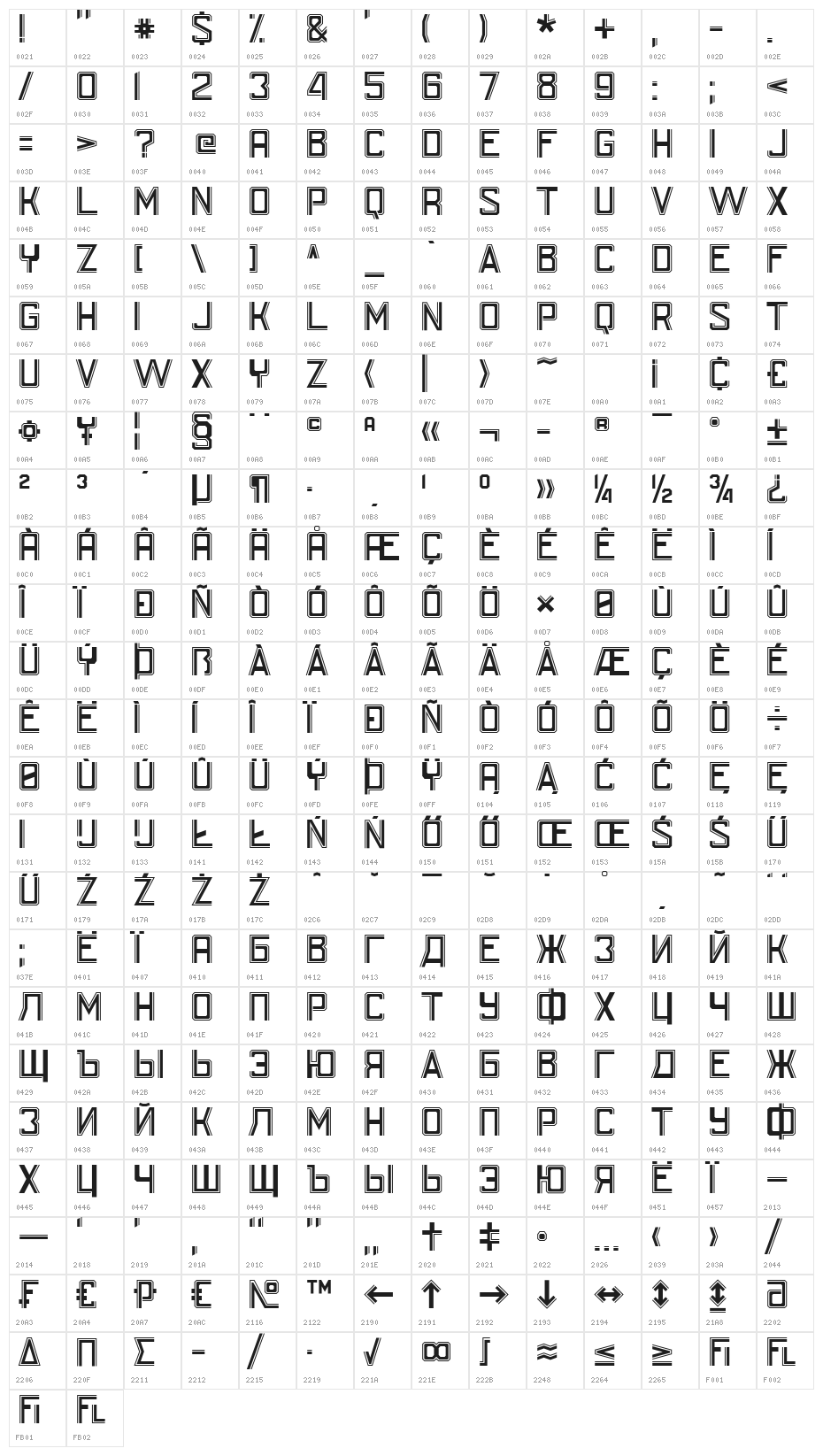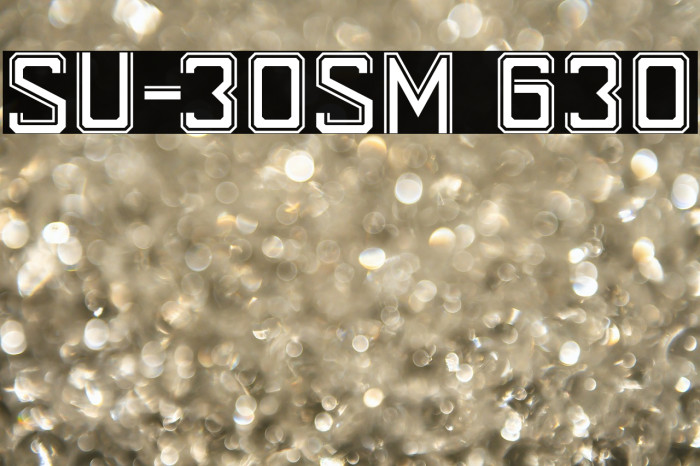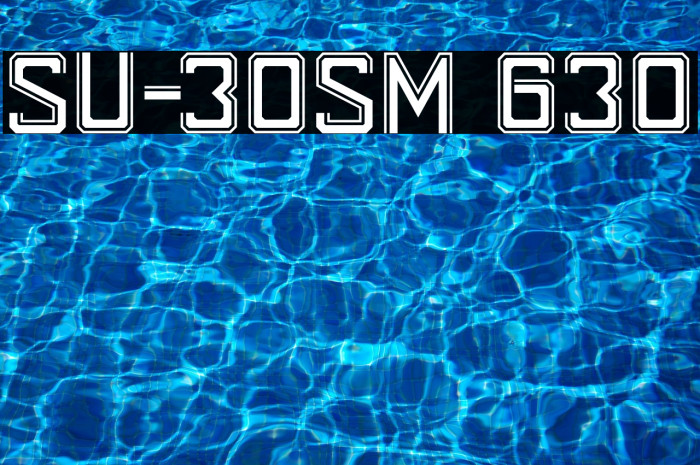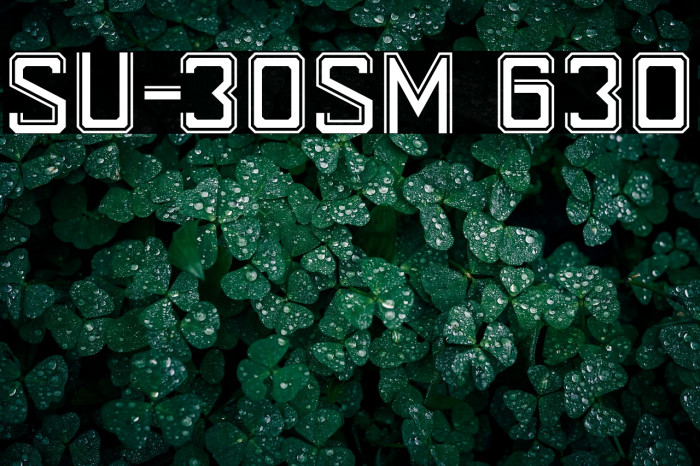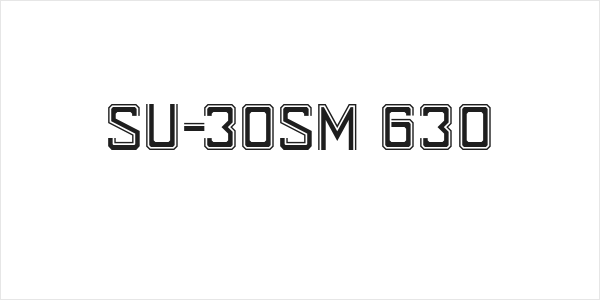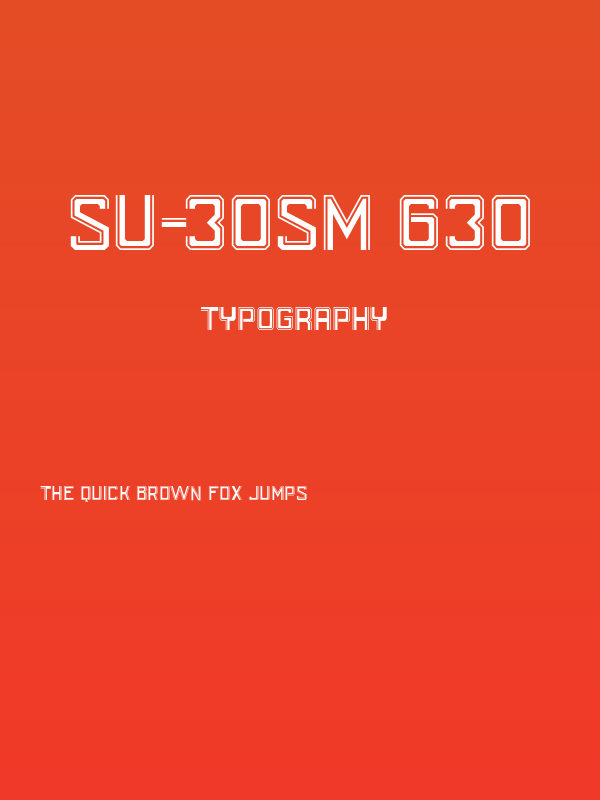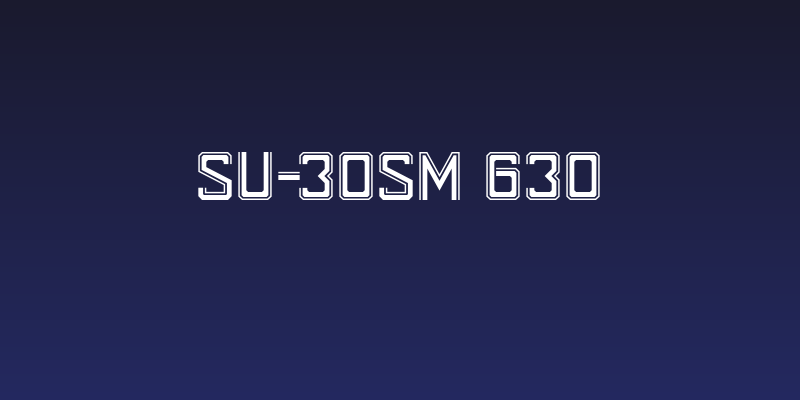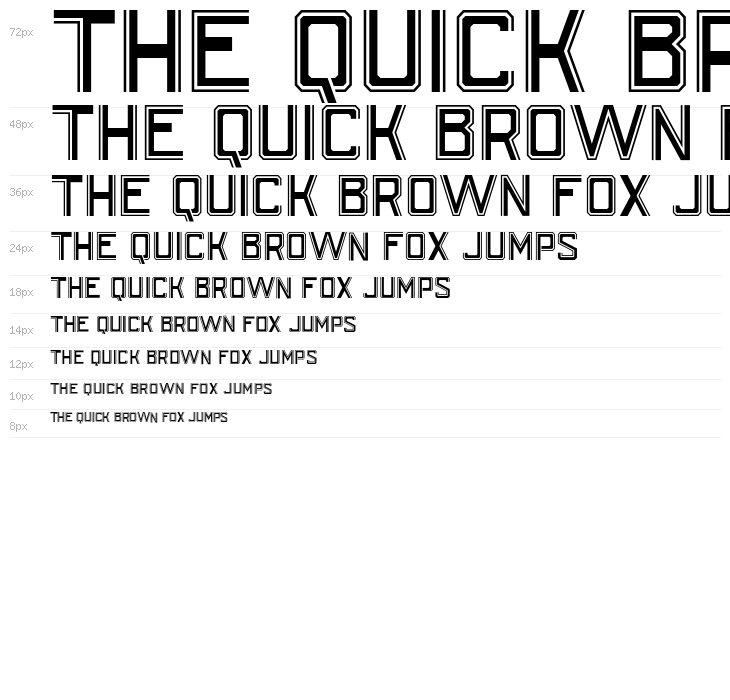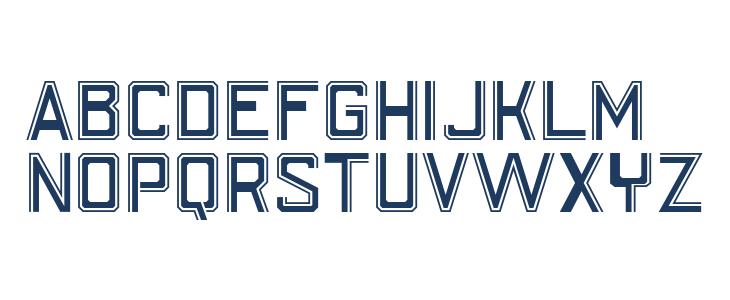
SU-30SM 630 Font
SU-30SM 630 Description
This font features a bold, geometric design with a distinct industrial and futuristic aesthetic. The characters are outlined with a double-line effect, creating a sense of depth and dimension. The uppercase and lowercase letters maintain a consistent style, with sharp angles and clean lines that give it a modern and technical appearance. The numbers and special characters follow the same design principles, ensuring uniformity across all glyphs. This font is ideal for projects that require a strong, impactful visual presence, such as technology branding, video game titles, or sci-fi themed designs.
| Overall Style | Futuristic, Industrial |
| Proposed Projects | Ideal for technology branding, video game titles, sci-fi themes, and industrial design projects. |